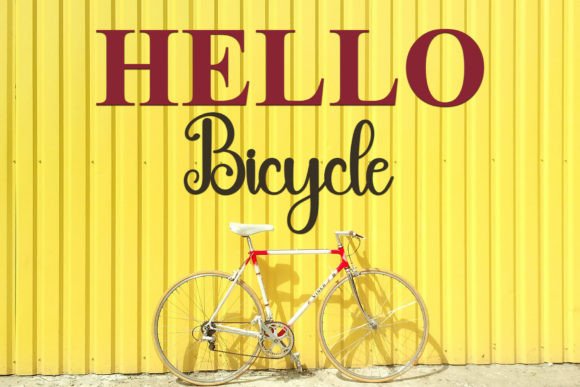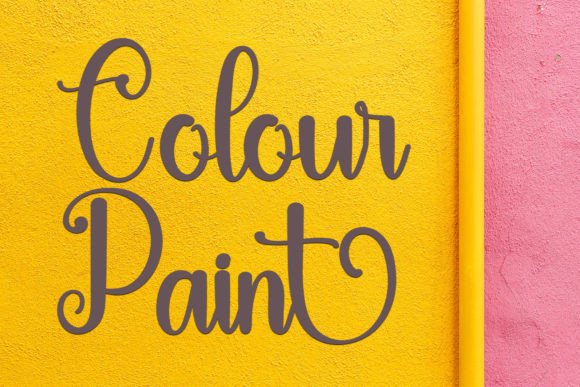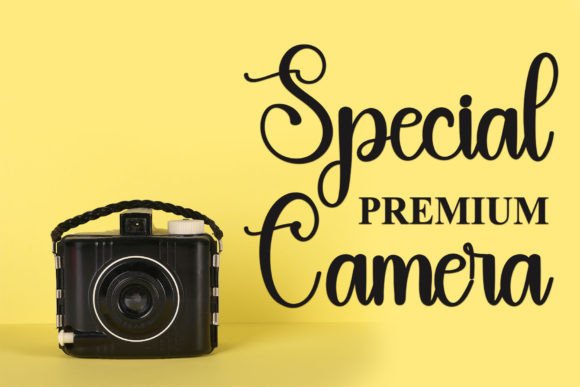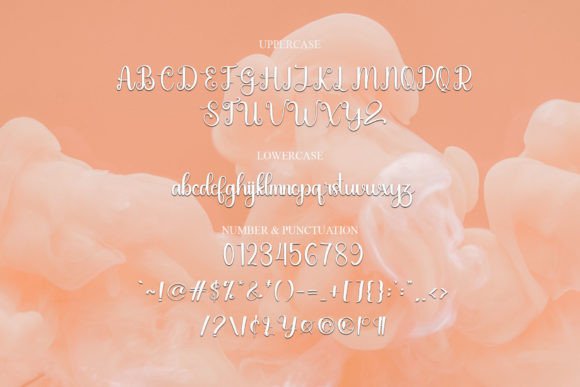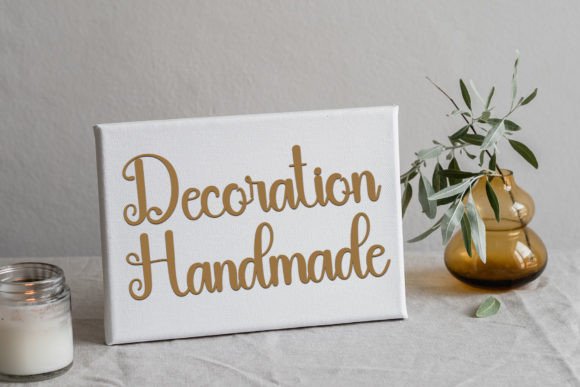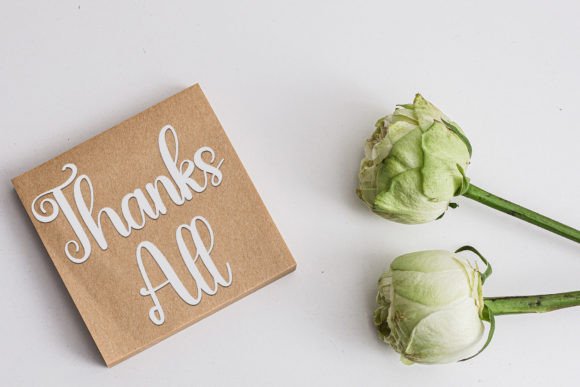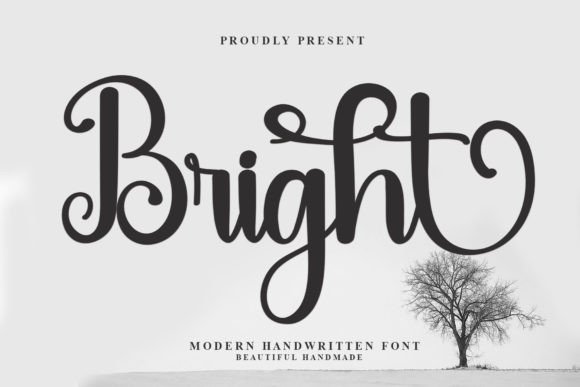
The Bright Font: Elevate Your Designs with Timeless Elegance
I’ll never forget the moment I stumbled upon the perfect font for a project. I was working late, surrounded by design mockups and sipping cold coffee, when I realized that the font I’d been using just wasn’t cutting it. The client wanted something elegant, yet modern; something that would make their brand stand out. That’s when I discovered Bright Font, a stylish handwritten font that instantly elevated my design game.
As a designer, I’m always on the lookout for fonts that can bring a touch of sophistication to my projects. Bright Font did just that, and more. Here’s what I love about it:
- ✨ Contemporary atmosphere: Bright Font has a fresh, modern feel that’s perfect for designs that need a bit of flair.
- ✅ Impeccable form: The font’s classic calligraphy inspiration shines through in its balanced and varied letterforms.
- 💫 Versatility: Whether I’m working on a logo, a poster, or a social media graphic, Bright Font adapts seamlessly.
Of course, no font is perfect, and Bright Font has a few minor quirks:
- 🤔 Limited multilingual support: While Bright Font covers the basics, it’s not designed for extensive multilingual use.
- ⚠️ Occasional kerning issues: As with any font, there might be some kerning adjustments needed, especially in longer texts.
The Story Behind Bright Font
Bright Font was inspired by the timeless beauty of classic calligraphy. Its designer sought to capture the elegance of traditional lettering while infusing it with a modern, approachable feel. The result is a font that’s both sophisticated and versatile, suitable for a wide range of design projects.
| Font Name | Bright Font |
| Is Bright Font suitable for body text? | While Bright Font is stunning, it’s best used for headlines and short paragraphs due to its elegant, yet somewhat ornate nature. |
| Does Bright Font support OpenType features? | Yes, Bright Font comes with a range of OpenType features, including ligatures and stylistic alternates, to enhance your designs. |
| Is Bright Font available in different weights? | Bright Font offers a range of weights, allowing you to customize the look and feel of your text from light and airy to bold and impactful. |